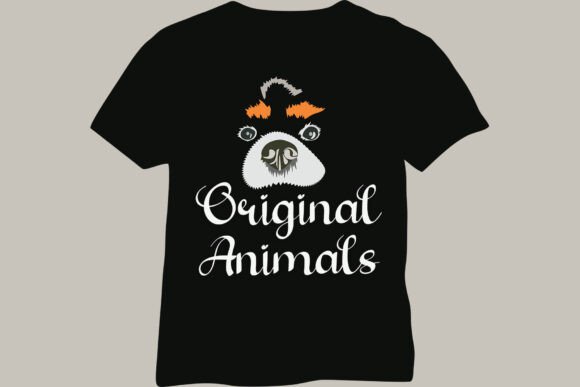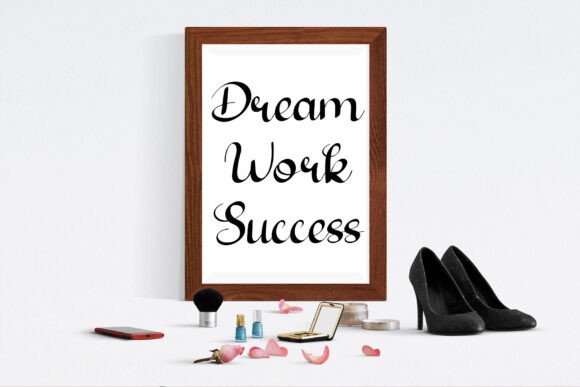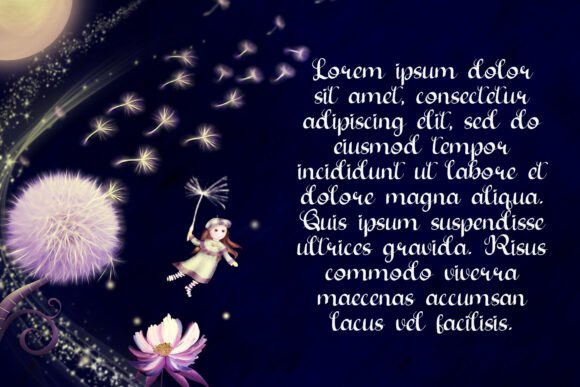
Introduction to Handmade Background Font
Handmade Background is a unique and elegant font.
Looks great on wedding invitations, greeting cards, billboards, logos, business cards, and any other design that requires a handwritten touch This font features varied baseline, created with a natural, hand-made touch.
Key Features of Handmade Background Font